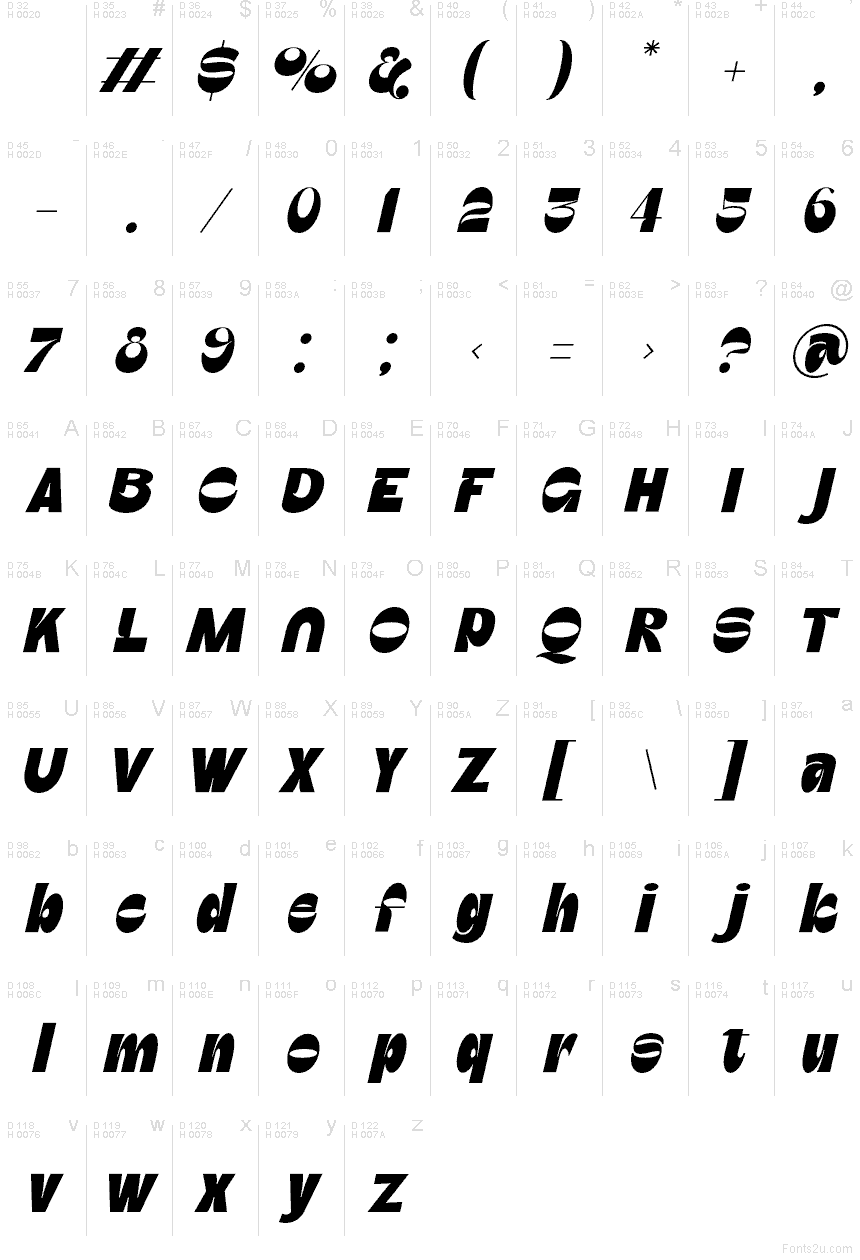
Gebrie Monika Oblique
Gebrie Monika Oblique font by Afkari Studio is a free groovy display typeface that feels like a shiny vinyl record pressed into bold black letters. Each character carries a smooth, slanted rhythm, with those distinctive oval cutouts running through the strokes like a glossy highlight, giving the text a slick, wet-ink sheen. The tight flow between letters creates a strong, continuous word shape, so headlines look punchy, loud, and unmistakably retro.
Using Gebrie Monika Oblique, you can push ‘70s-inspired branding, music event posters, party flyers, YouTube thumbnails, bold logotypes, and eye-catching social media graphics into full-on disco mode. This free font shines at large sizes where its sculpted curves and in-line details stay crisp and dramatic. For supporting text, pair it with a clean geometric sans to keep the spotlight on Gebrie Monika’s playful, slanted groove.